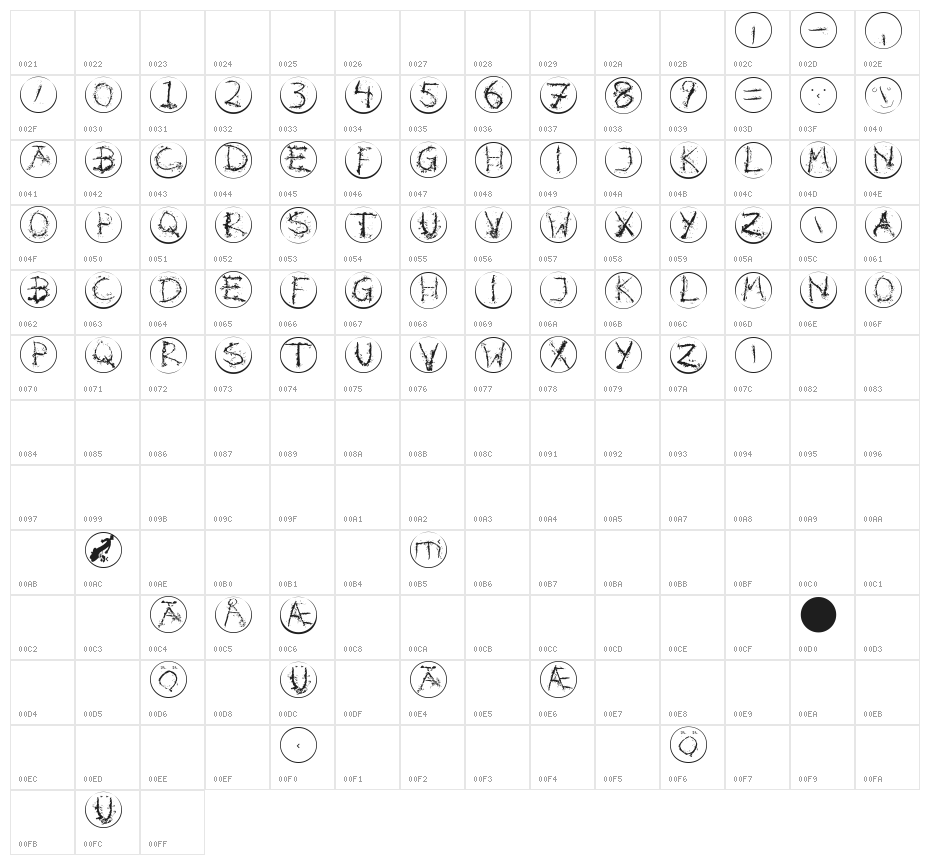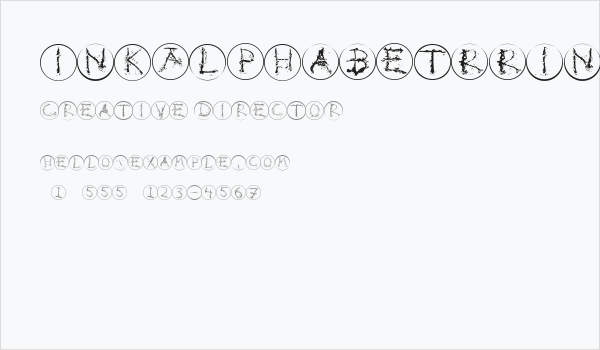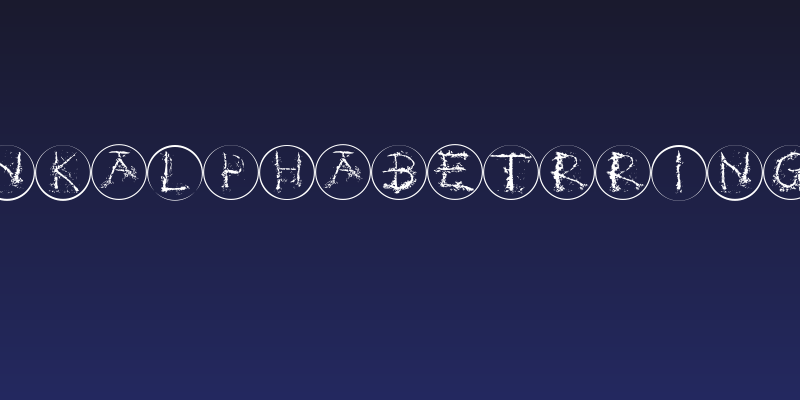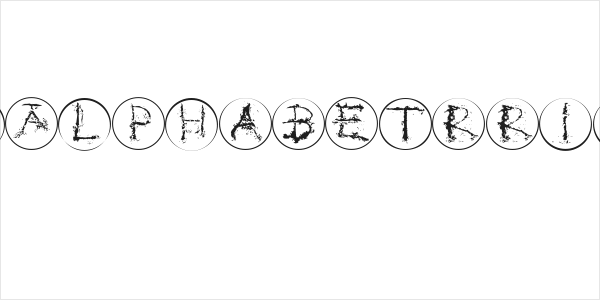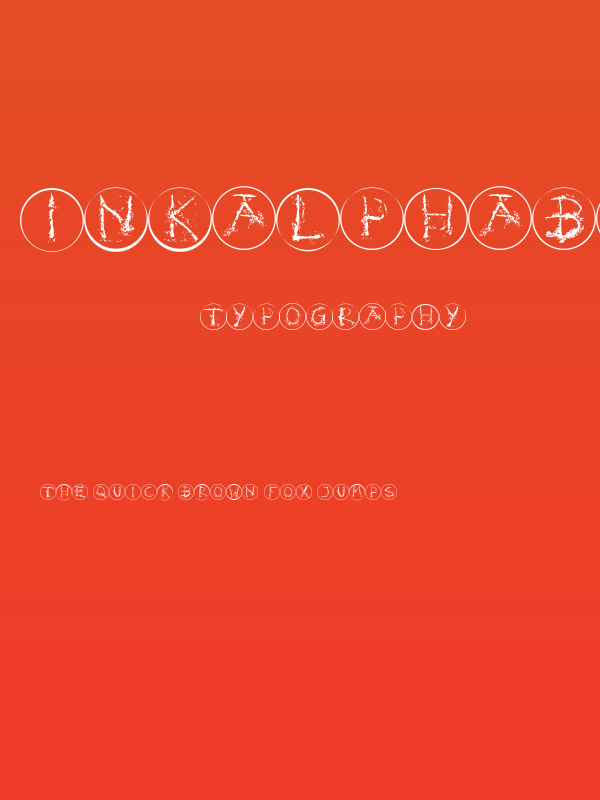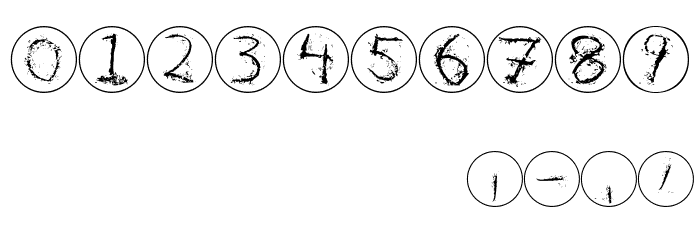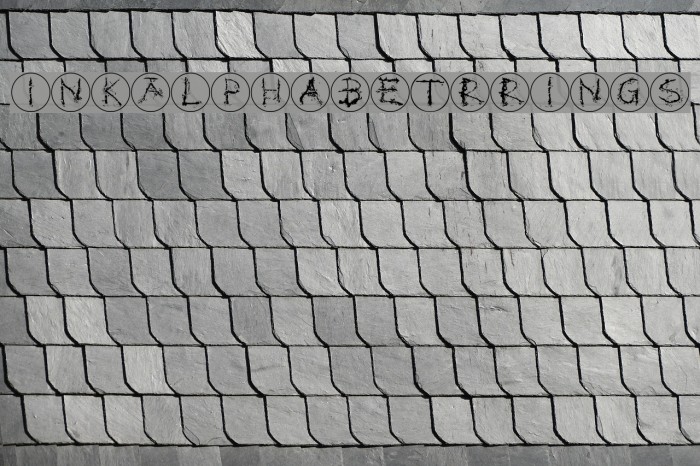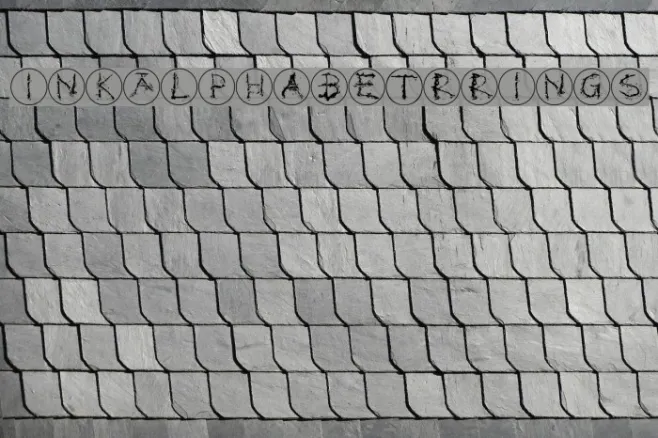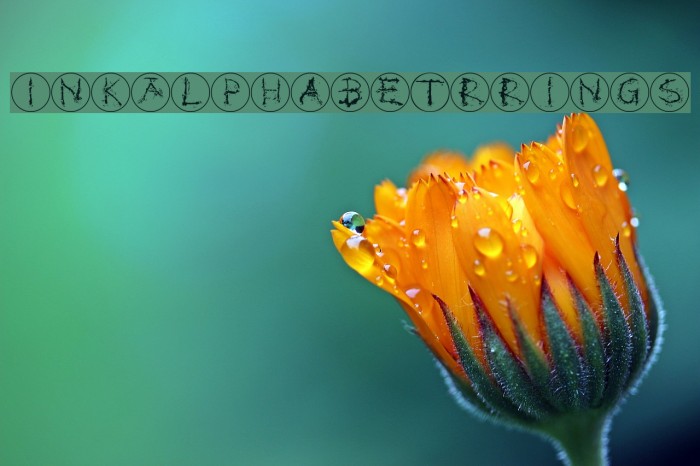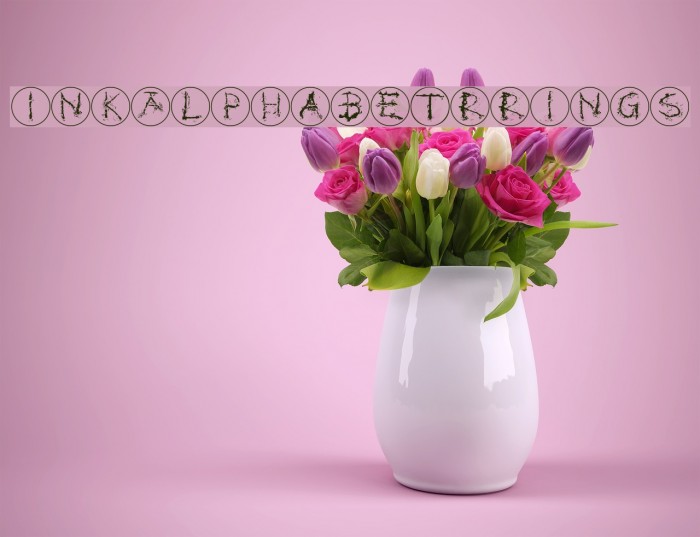
InkAlphabetRRings Font
InkAlphabetRRings Description
This font features a unique, distressed style where each character is encased in a circular ring, giving it a stamp-like appearance. The letters and numbers have a rough, textured look, reminiscent of ink that has been partially worn away. This creates a vintage, grunge aesthetic that is both eye-catching and distinctive. The uppercase and lowercase letters maintain a consistent design, with the same level of distress applied throughout. The numbers and special characters follow the same stylistic approach, ensuring uniformity across the entire set. The overall effect is one of rugged charm, suitable for projects that require a touch of edginess or a handcrafted feel.
| Use Case | Logos, Posters, Album Covers |
| Proposed Projects | Ideal for album covers, posters, branding for alternative or indie products, and any design needing a rugged, handcrafted look. |